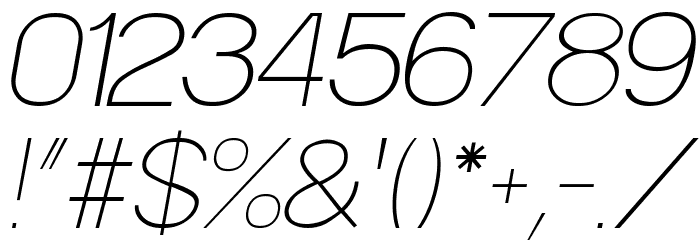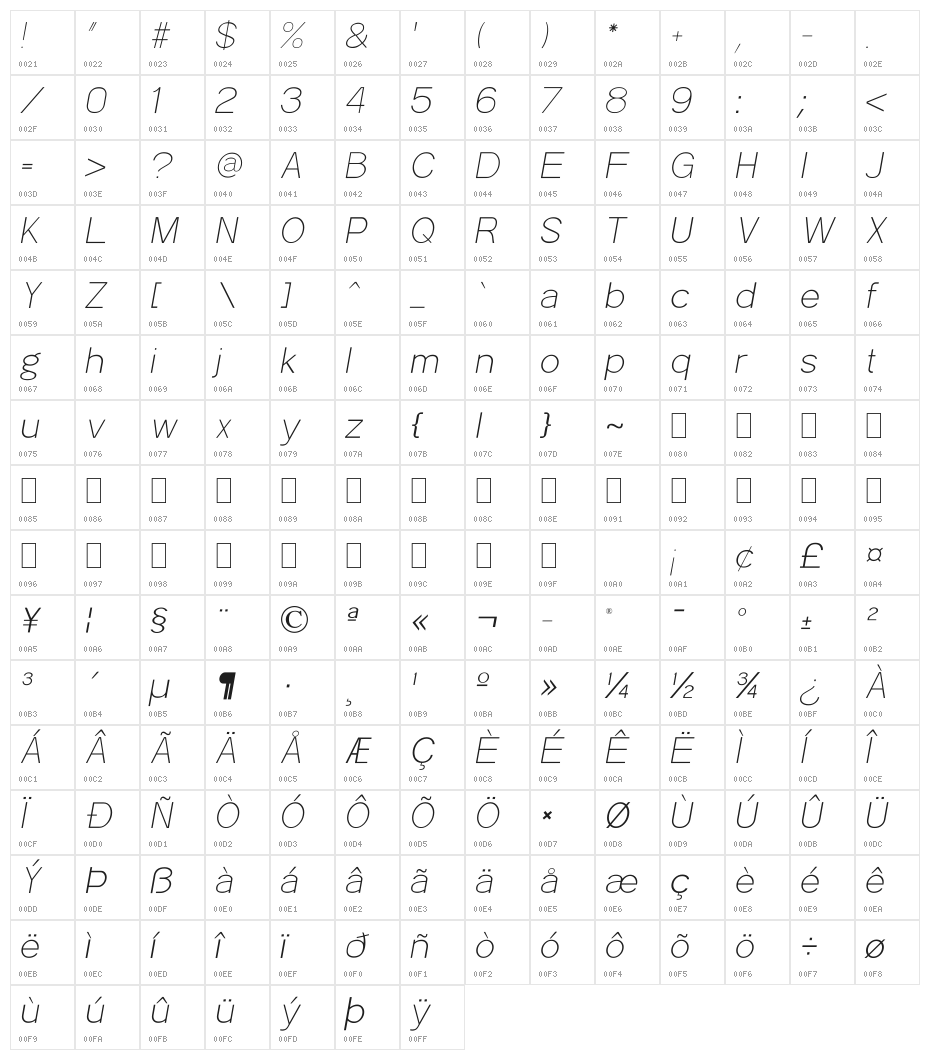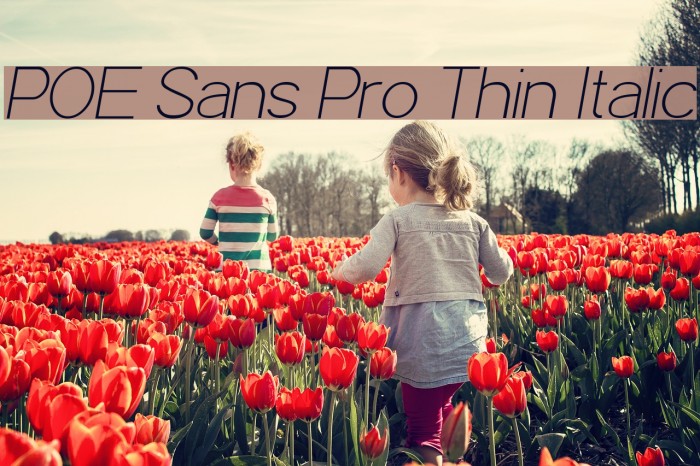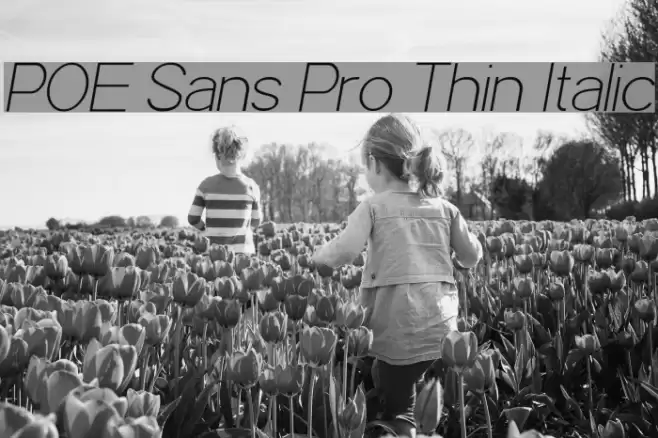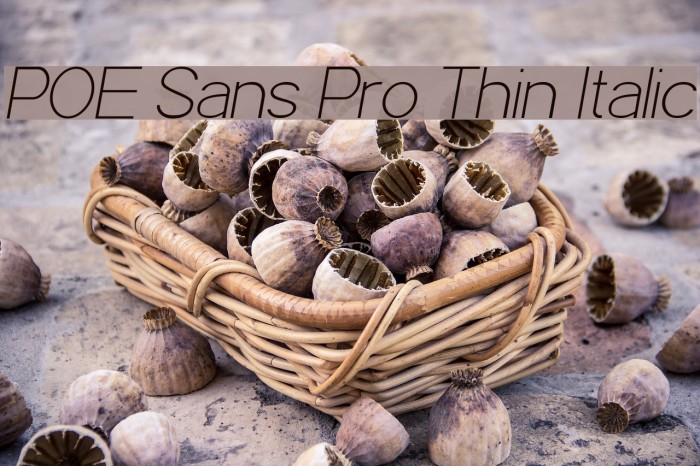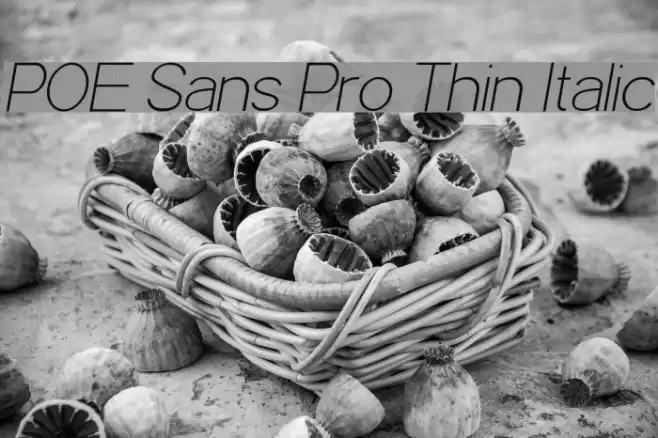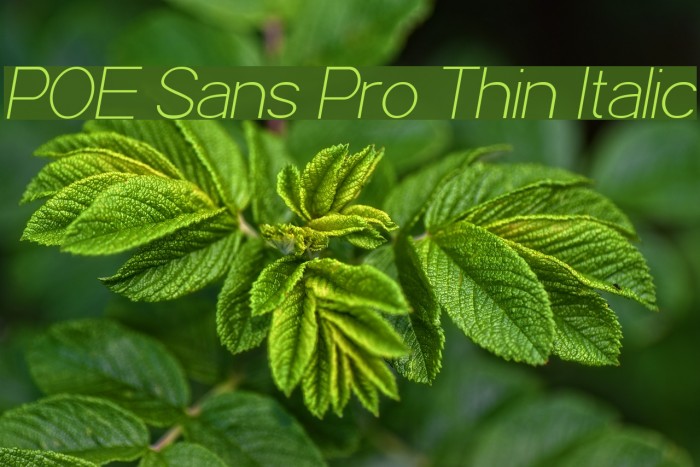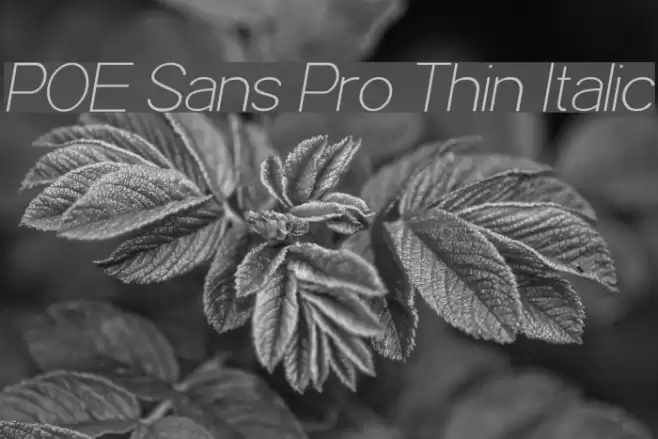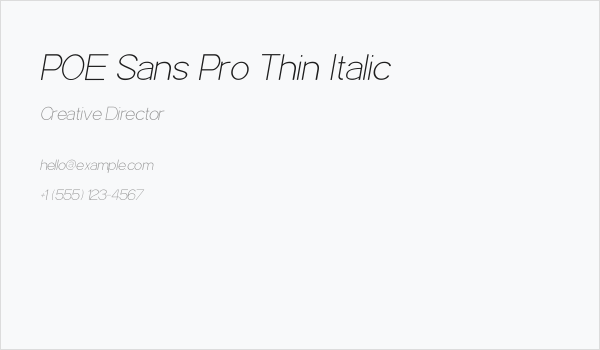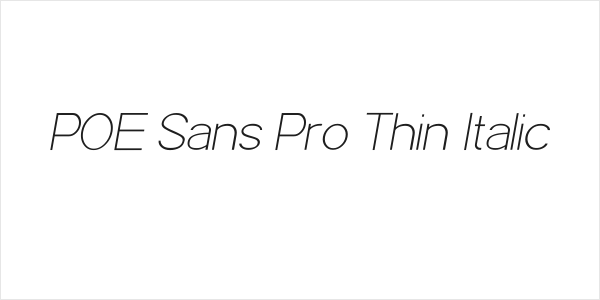
POE Sans Pro Thin Italic Font
POE Sans Pro Thin Italic Description
This font exhibits a sleek and modern design with a thin and elegant structure. The characters are slightly tilted, giving it an italic appearance that adds a sense of motion and sophistication. The strokes are consistently thin, contributing to a light and airy feel. The overall design is clean and minimalistic, making it suitable for contemporary applications. The spacing between characters is normal, ensuring readability while maintaining a stylish look. This font is versatile, ideal for projects that require a modern and professional touch.
| Proposed Projects | Ideal for branding, editorial design, fashion magazines, and modern websites. |